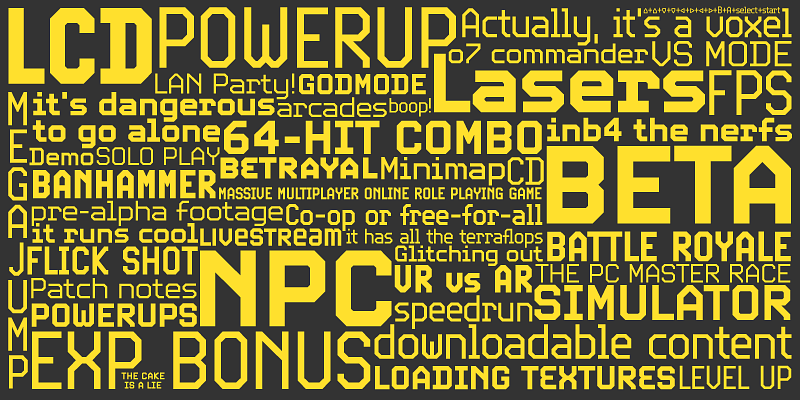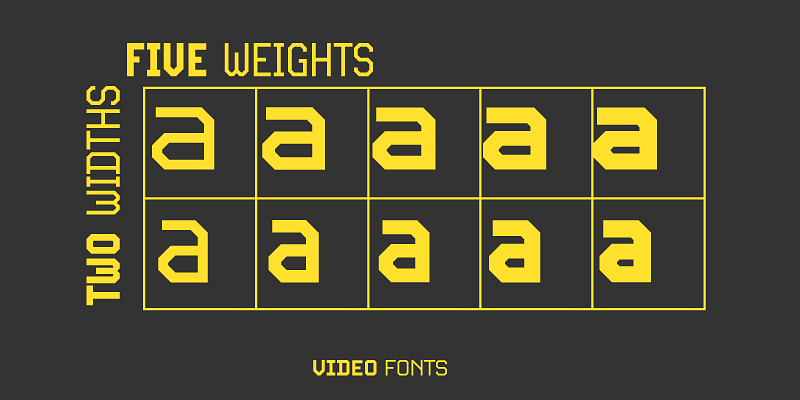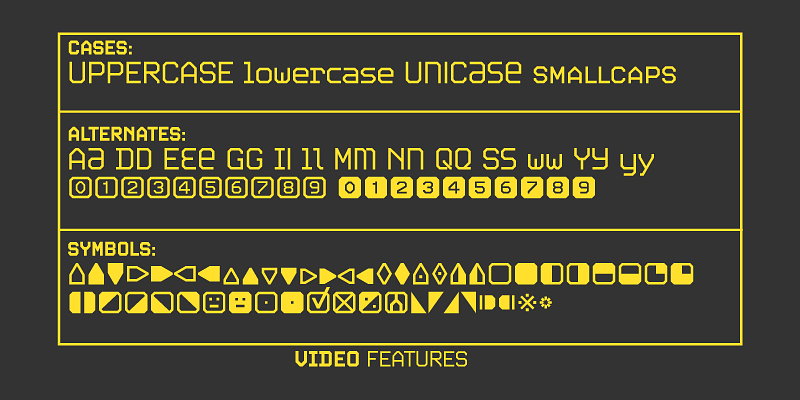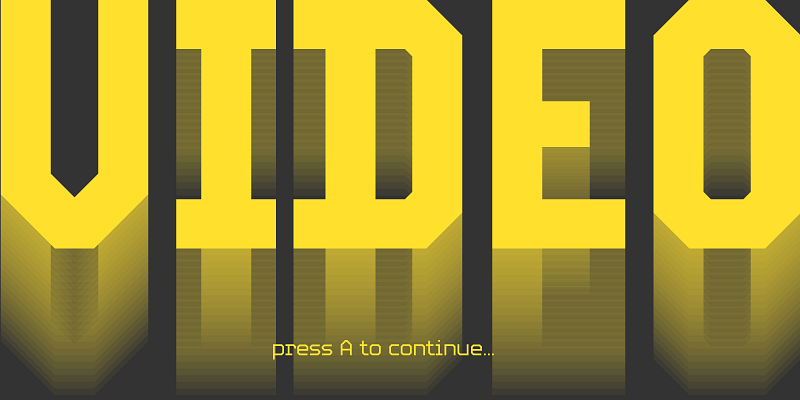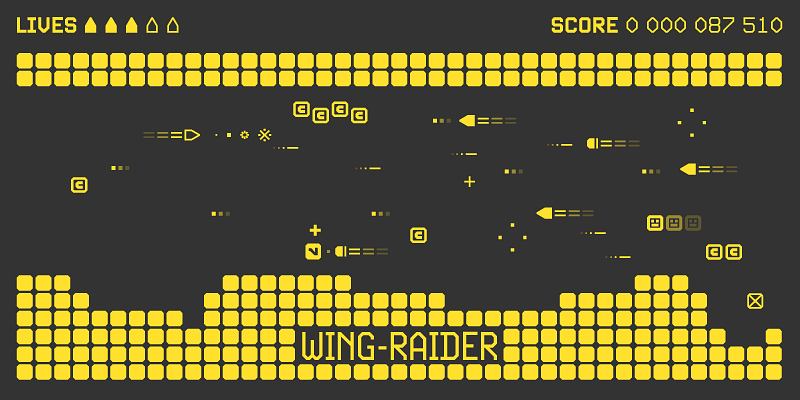
Although it boasts plenty of the traits of its origins (early screen technologies), Video maintains a balance between the elements of its 1970s roots and the mechanical yet transparent late 20th century techno/pop design.